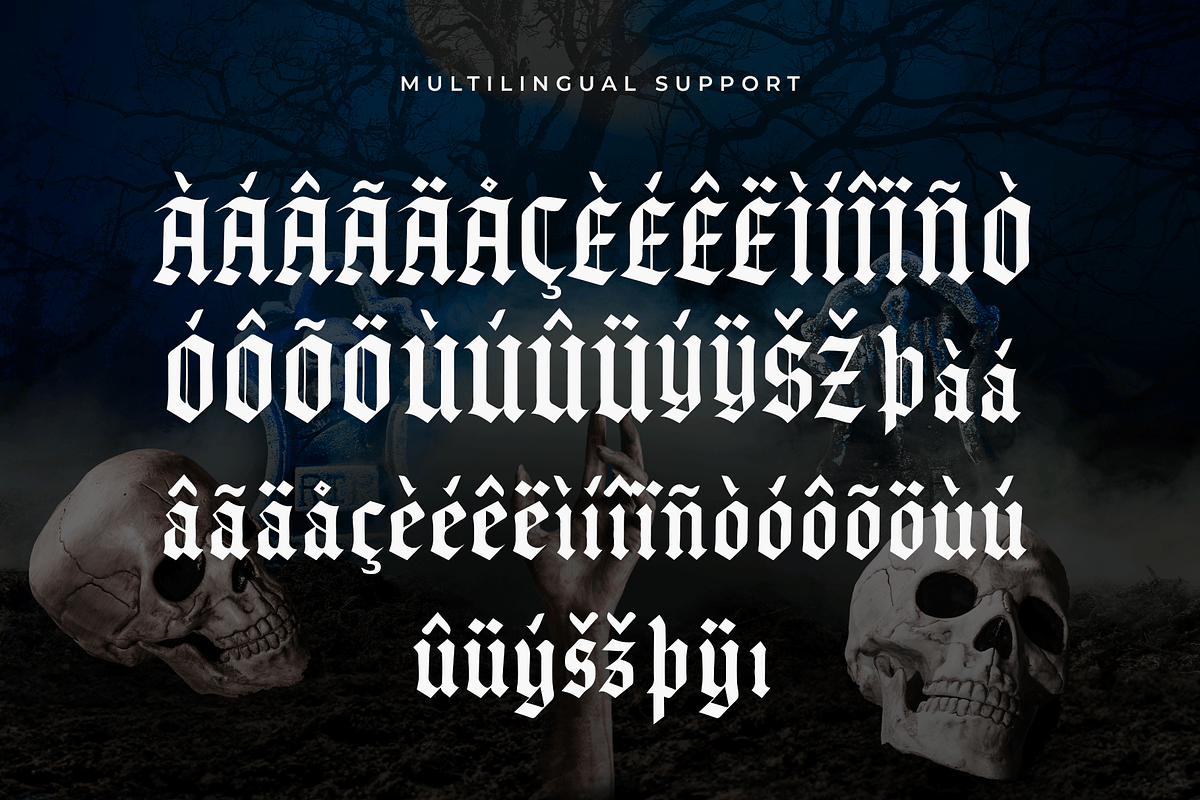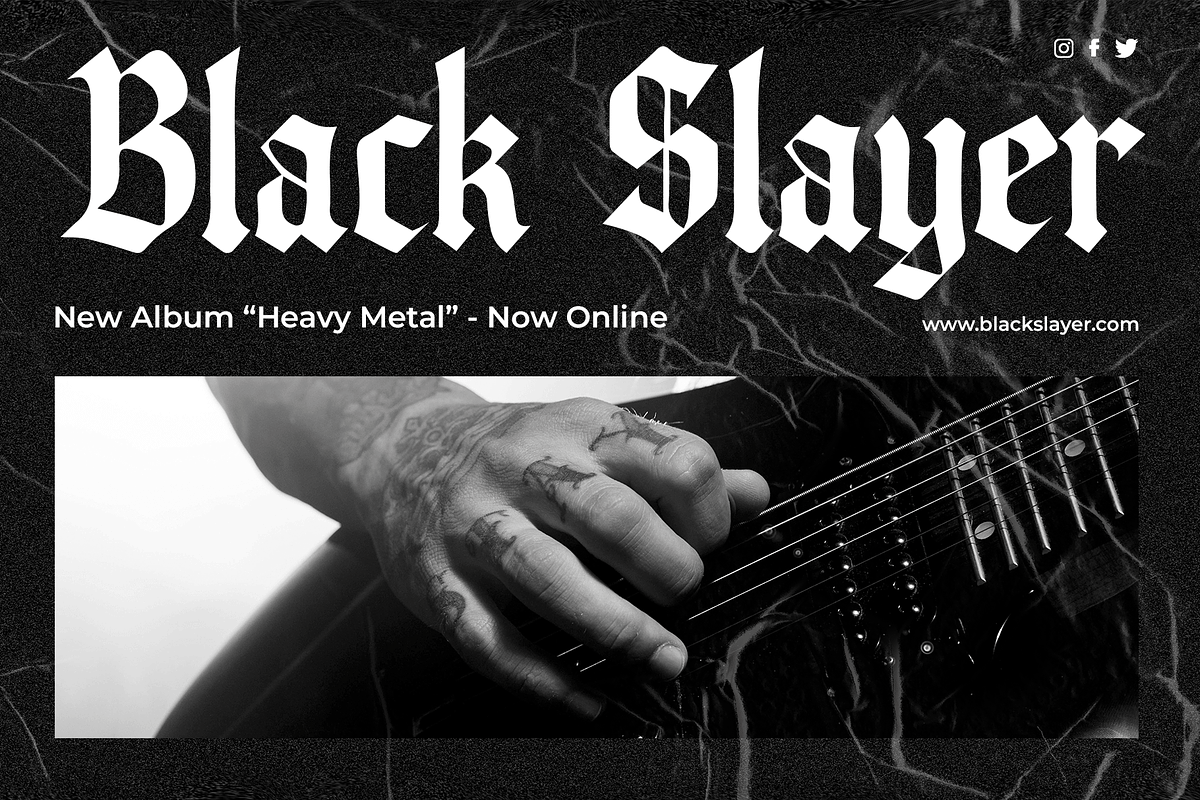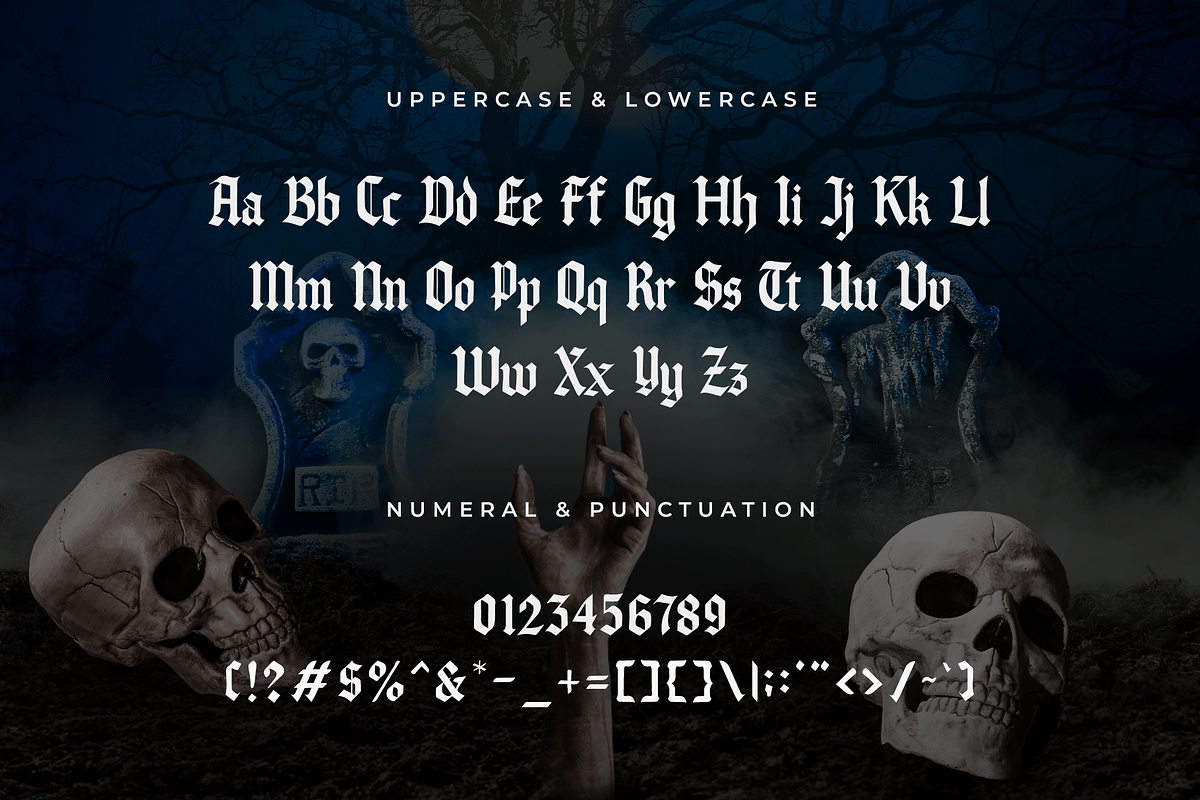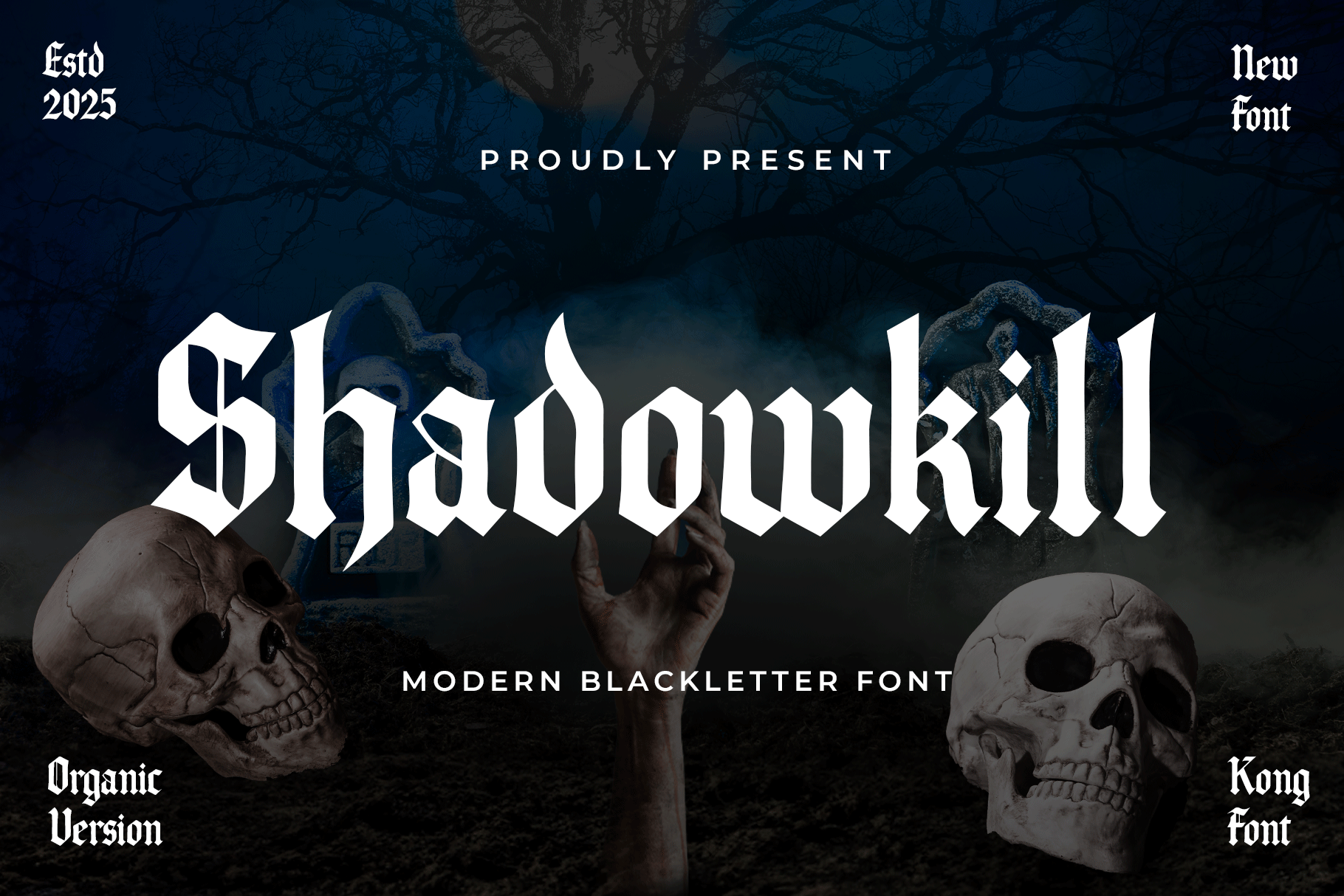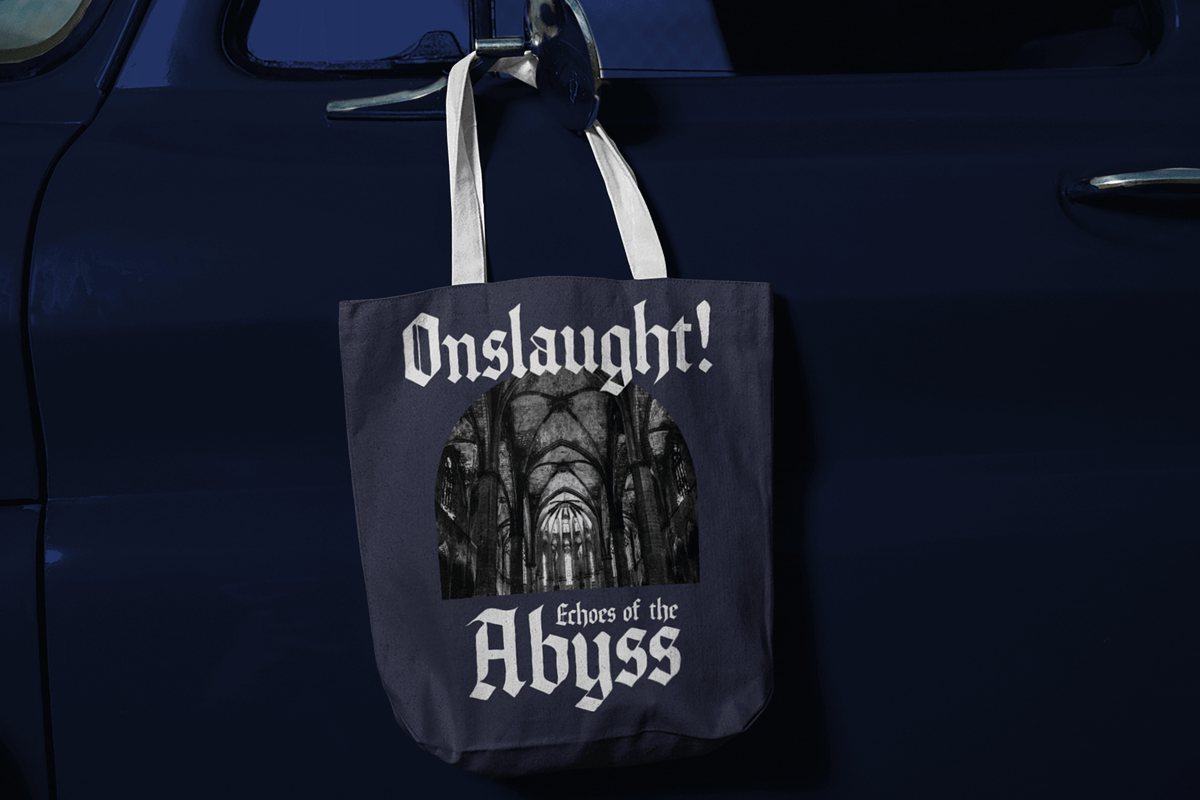
Shadowkill – Modern Blackletter Font
Shadowkill – Modern Blackletter Typeface
Shadowkill is a modern blackletter typeface that fuses traditional gothic aesthetics with sharp, contemporary design. Bold and commanding, this font is built for creators who want to make a striking impact while retaining a classic edge.
Perfect for album covers, streetwear branding, posters, tattoo designs, and gaming graphics, Shadowkill offers an aggressive yet stylish look. Its intricate letterforms are balanced with modern angles and clean edges, making it readable without losing the iconic blackletter character.
The font includes uppercase and lowercase letters, alternates, punctuation, numerals, and multilingual support—ensuring creative freedom for both digital and print use.
Whether you're crafting metal band logos or bold branding for edgy projects, Shadowkill brings raw energy and sophisticated rebellion to your design toolbox.